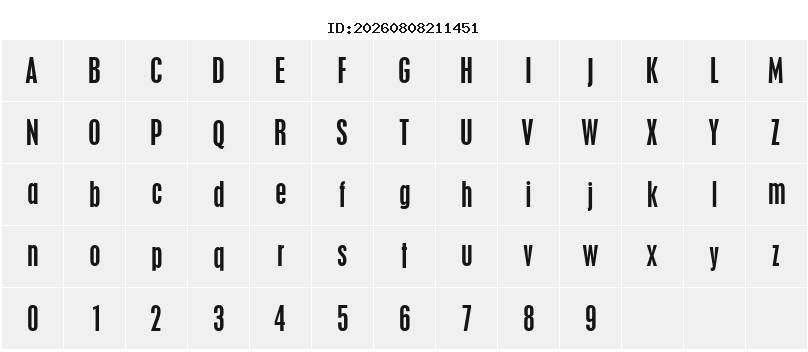
Placard Condensed Preview
• Font Name: Placard Condensed
• Full Font Name: Placard Condensed
About Placard Condensed.ttf
Placard Condensed.ttf is a modern, elegant sans-serif font designed for ultimate readability and visual harmony. Perfect for branding, headlines, web design, and print materials.